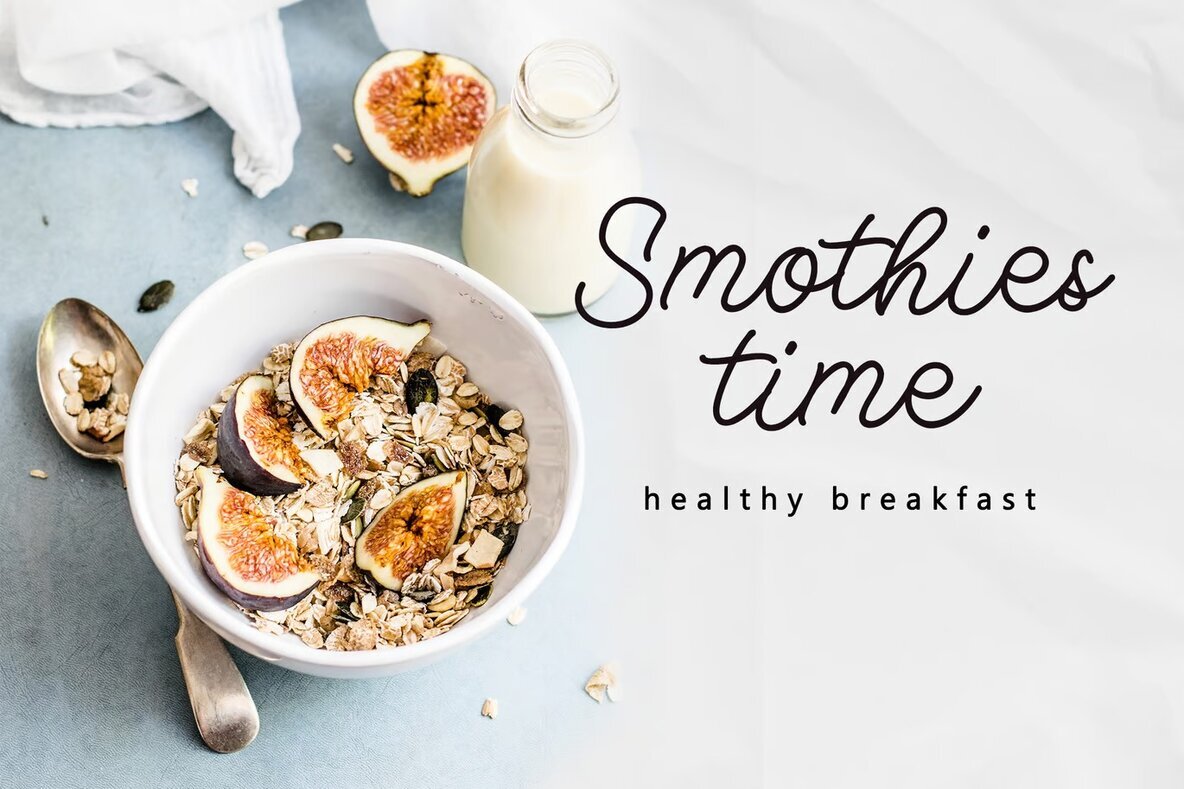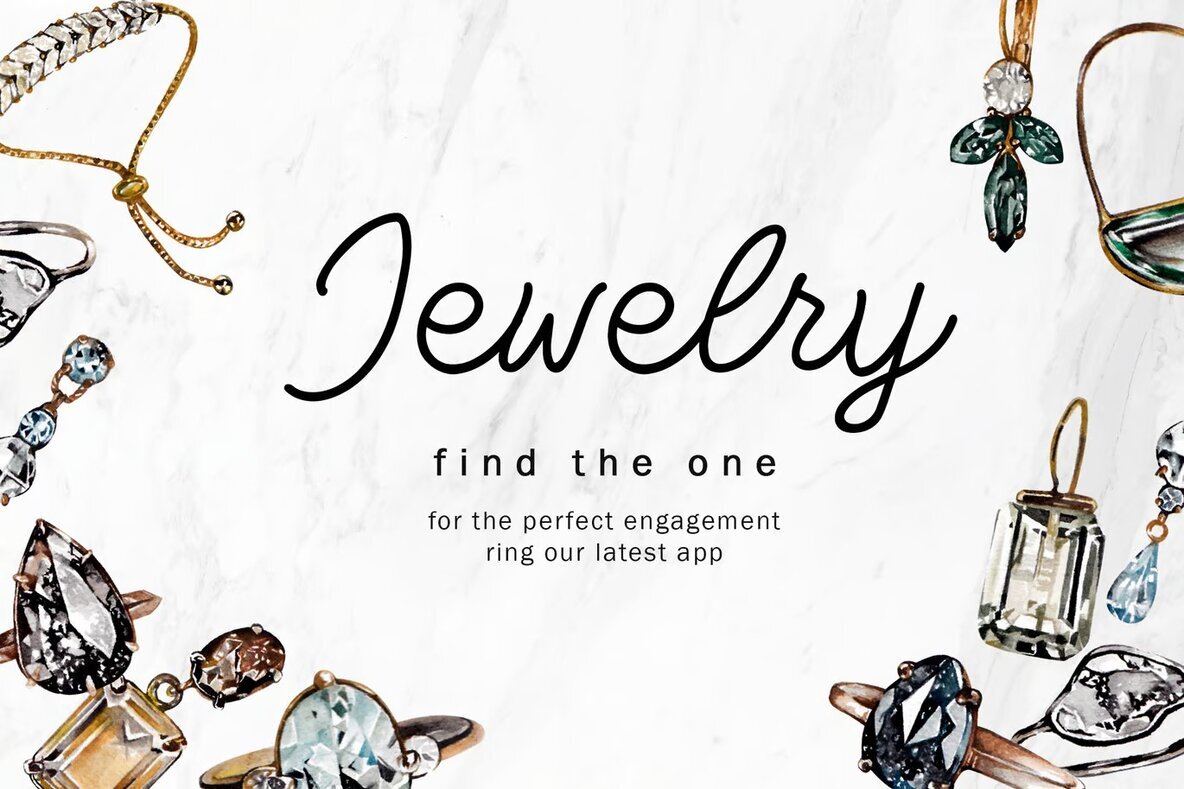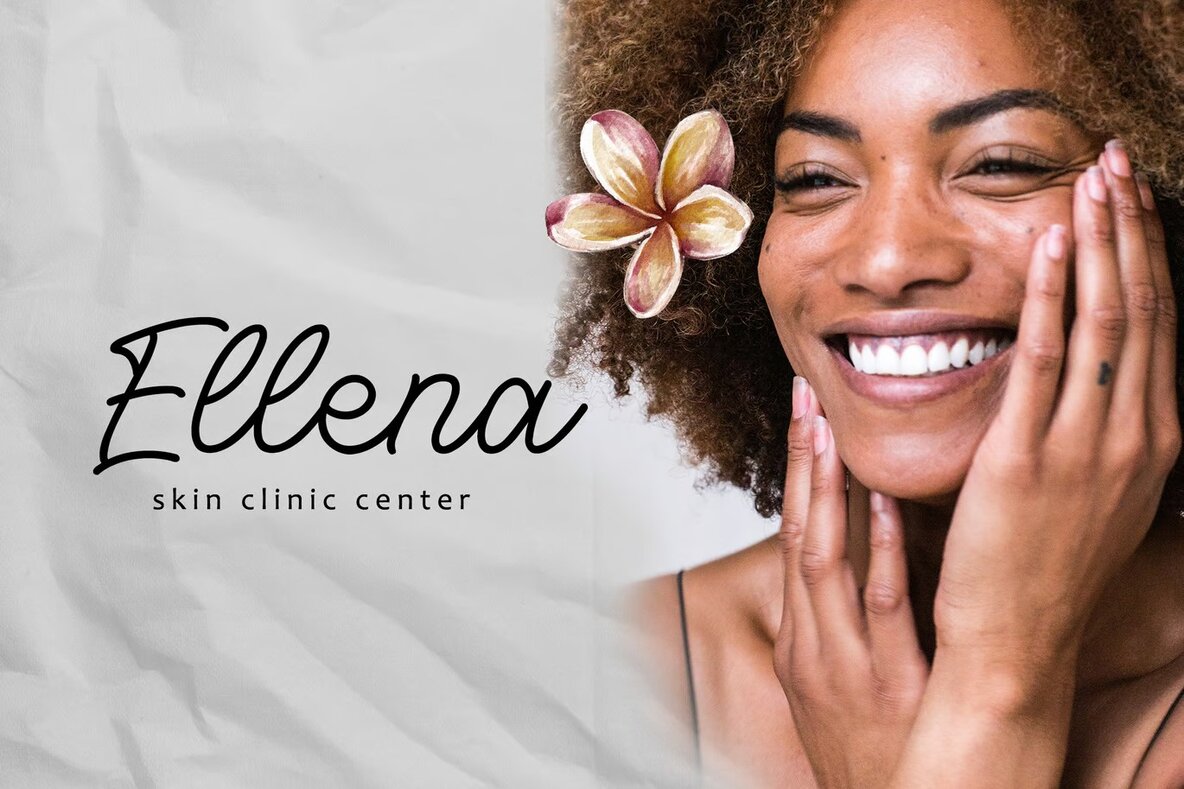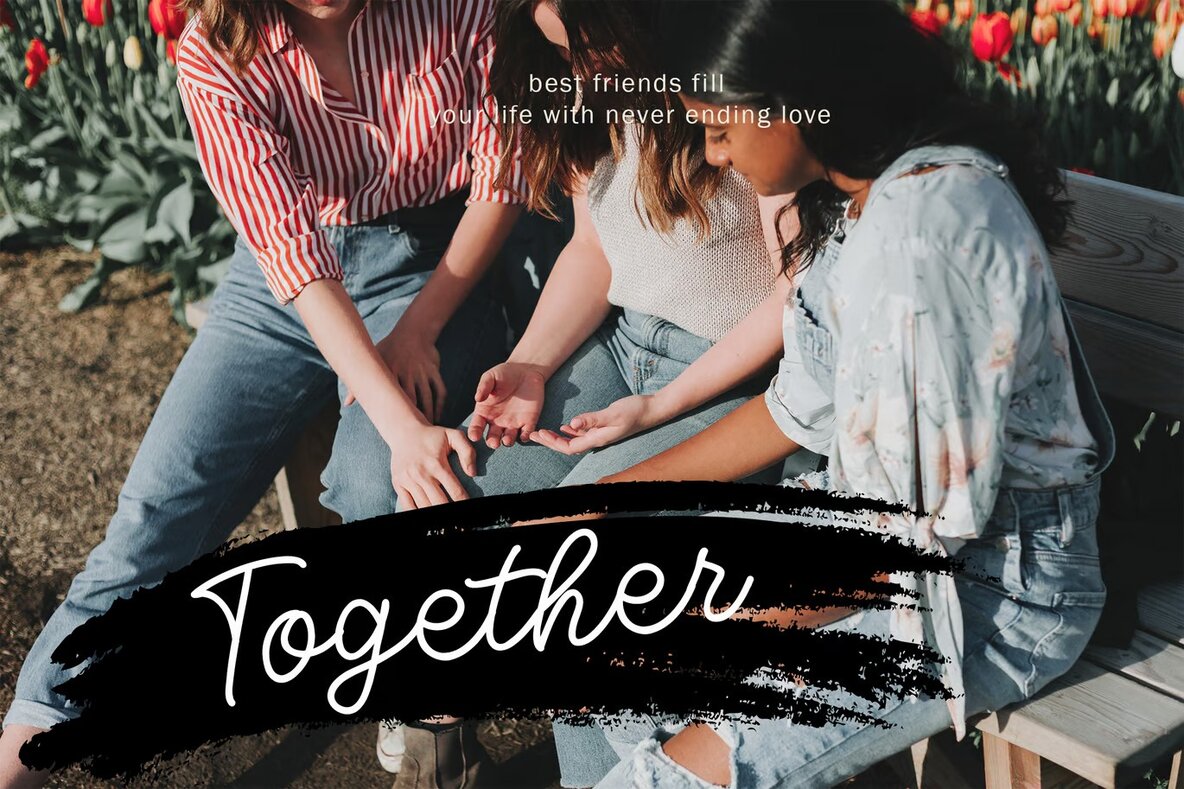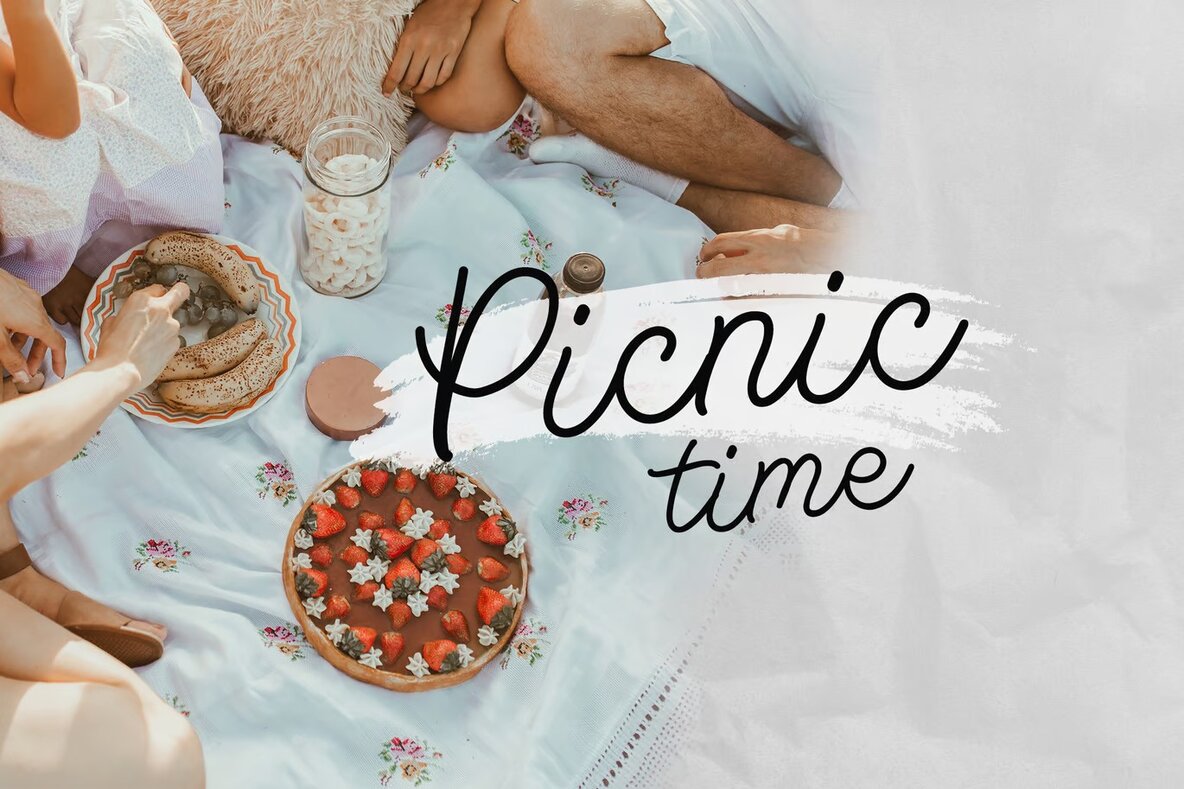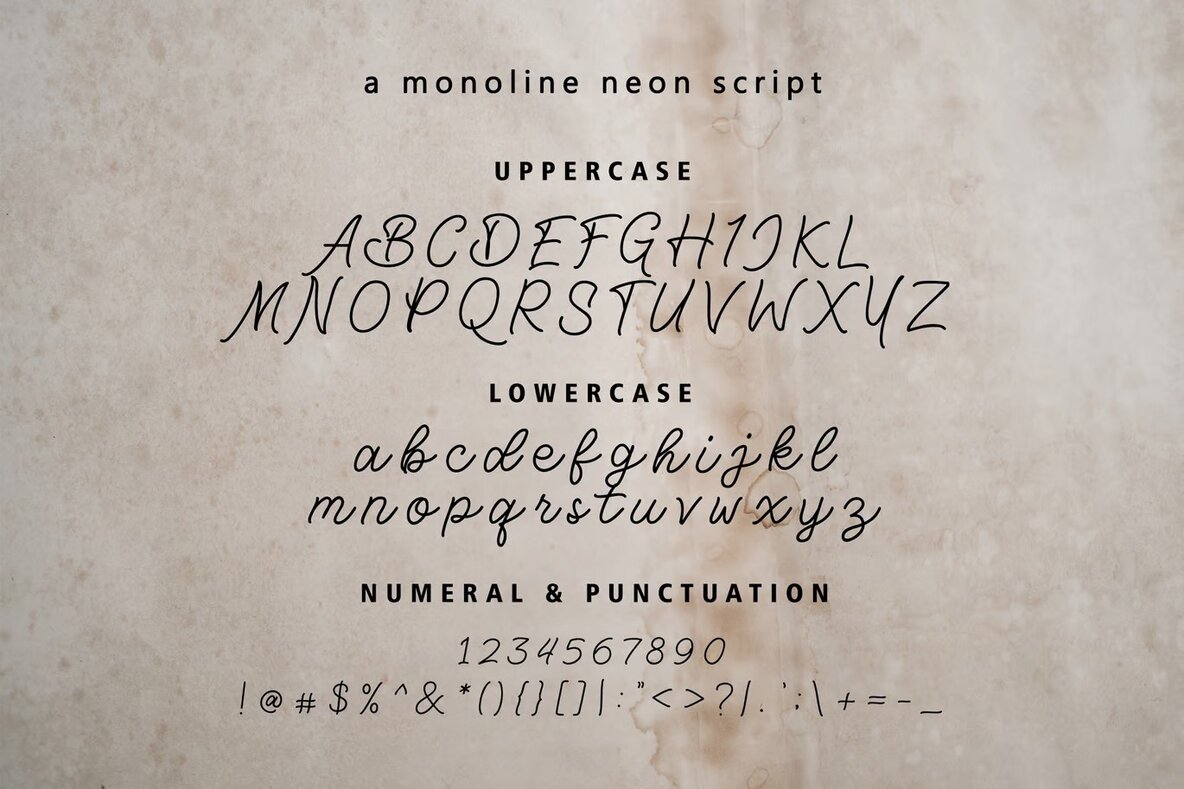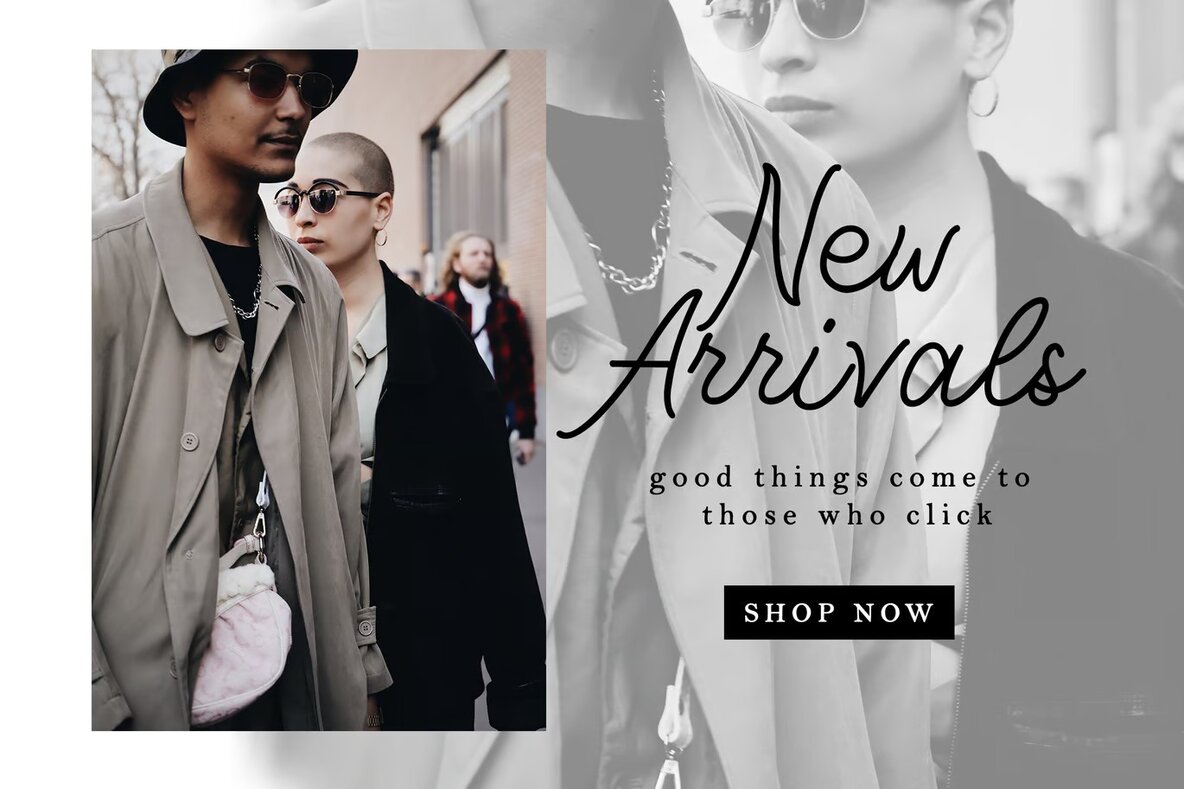
Maria Alexa Font
Maria Alexa Regular
Maria Alexa is an elegant handwritten font that brings a distinct monoline signature style to any project. This font's unique flow and approachable design make it ideal for various applications, such as wedding designs, social media graphics, and feminine branding. Whether you're working on greeting cards, modern invitations, or blog designs, Maria Alexa provides a perfect touch of sophistication and charm.
Versatile and stylish, Maria Alexa is also well-suited for stationery designs, modern advertising, art quotes, and home decor projects. Its adaptability makes it a great choice for book titles, special event materials, birthday designs, and personalized items like mugs, pillows, and t-shirts. With its effortless style, Maria Alexa meets any signature font needs, providing a beautiful addition to your next design project.